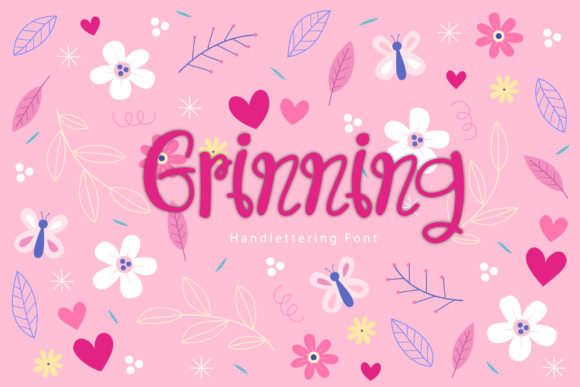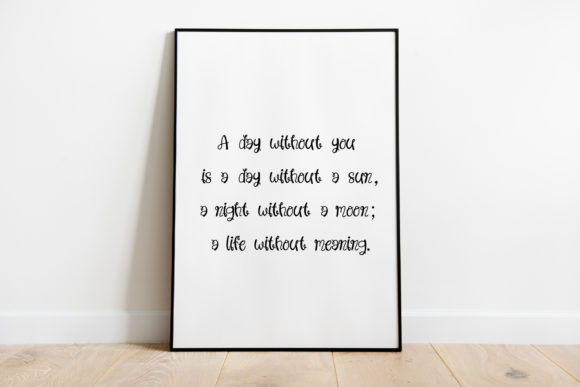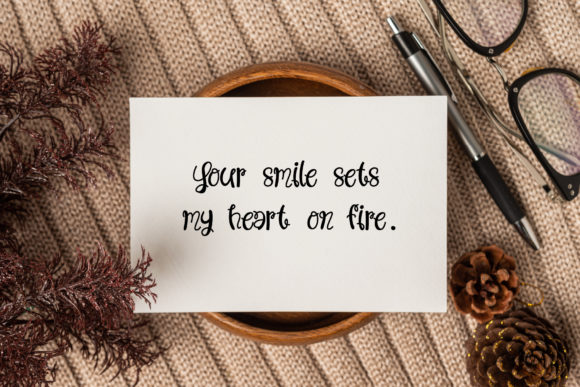
Grinning Font
About Grinning Font
Introducing “Grinning” – a romantic and whimsical script font that adds a touch of enchantment to your designs. Whether you’re using it for crafting, digital designing, presentations, or greeting card making, Grinning is the perfect choice!
Grinning exudes a romantic and whimsical vibe with its flowing script style. The elegant and playful nature of this font brings a sense of enchantment to your creative projects, making it ideal for a wide range of applications.
Crafting enthusiasts will find Grinning to be a versatile and captivating addition to their projects. Its romantic and whimsical appearance adds a touch of magic to handmade crafts, making them truly special and memorable.
Digital designers will appreciate the charm and versatility of Grinning. Whether it’s designing social media graphics, website elements, or digital artwork, this font infuses a sense of romance and whimsy into the digital space, capturing the imagination of viewers.
When it comes to presentations, Grinning adds a touch of elegance and enchantment. It helps create a captivating and visually appealing atmosphere, ensuring that your content leaves a lasting impression on the audience.
Greeting cards become even more heartfelt with the use of Grinning. Its romantic and whimsical style complements various occasions, from anniversaries to love letters, adding a touch of charm and sweetness to your heartfelt messages.
In summary, Grinning is a romantic and whimsical script font that brings an enchanting and captivating vibe to your designs. Its versatility makes it suitable for crafting, digital designing, presentations, and greeting card making. Embrace the romantic charm of Grinning and let it add a touch of magic and whimsy to your creative projects.